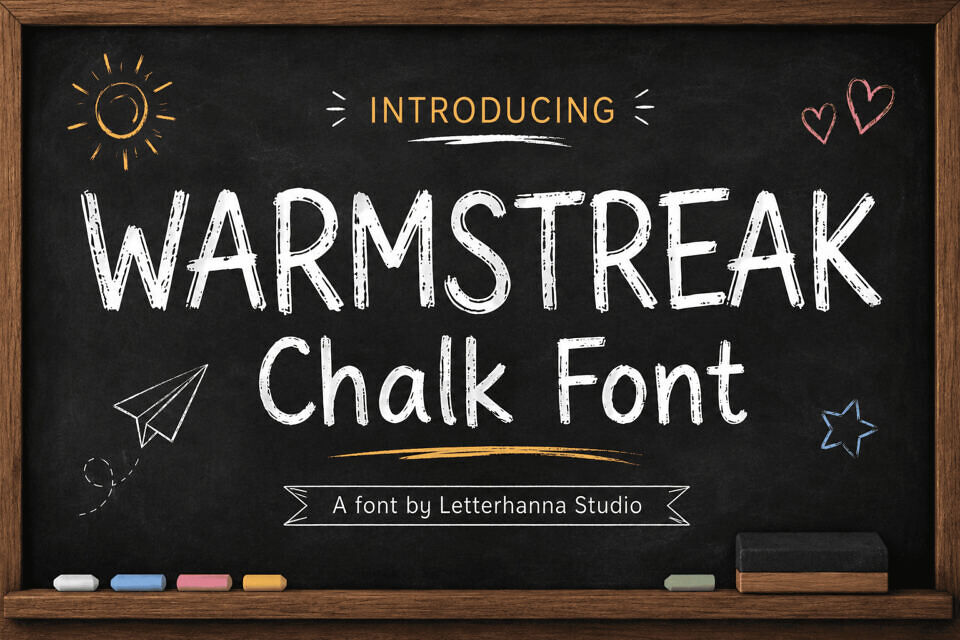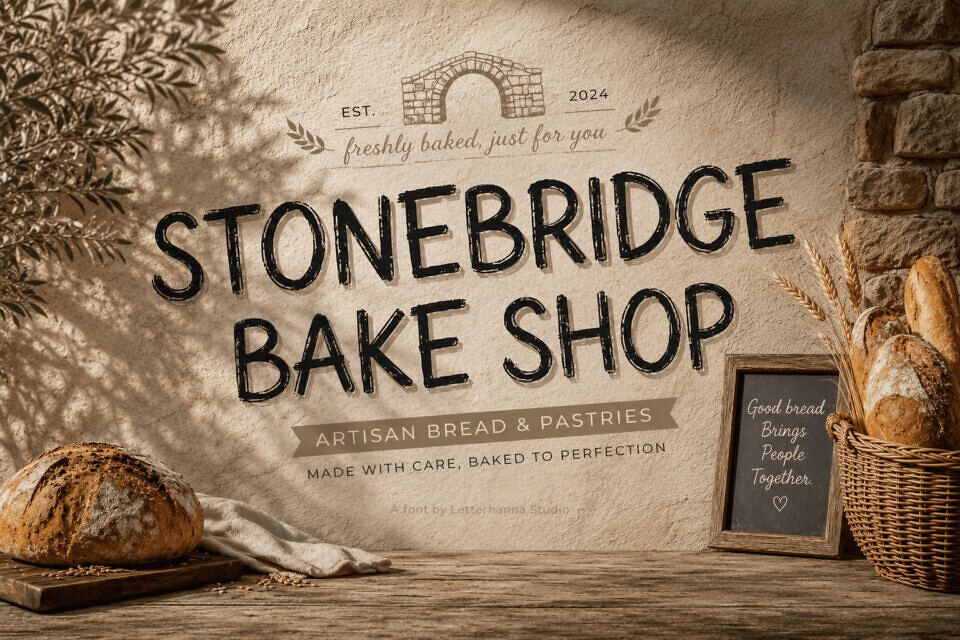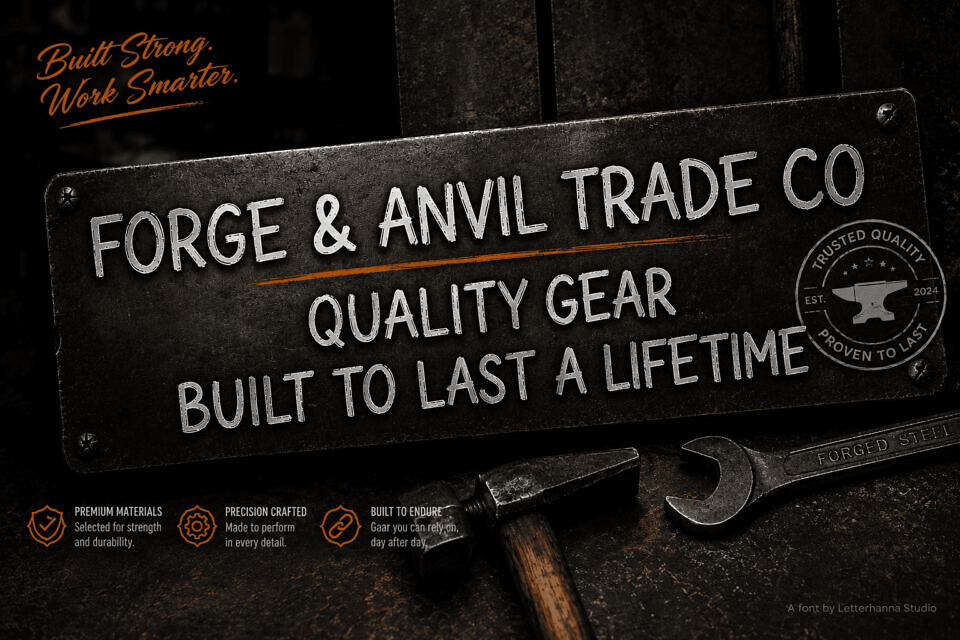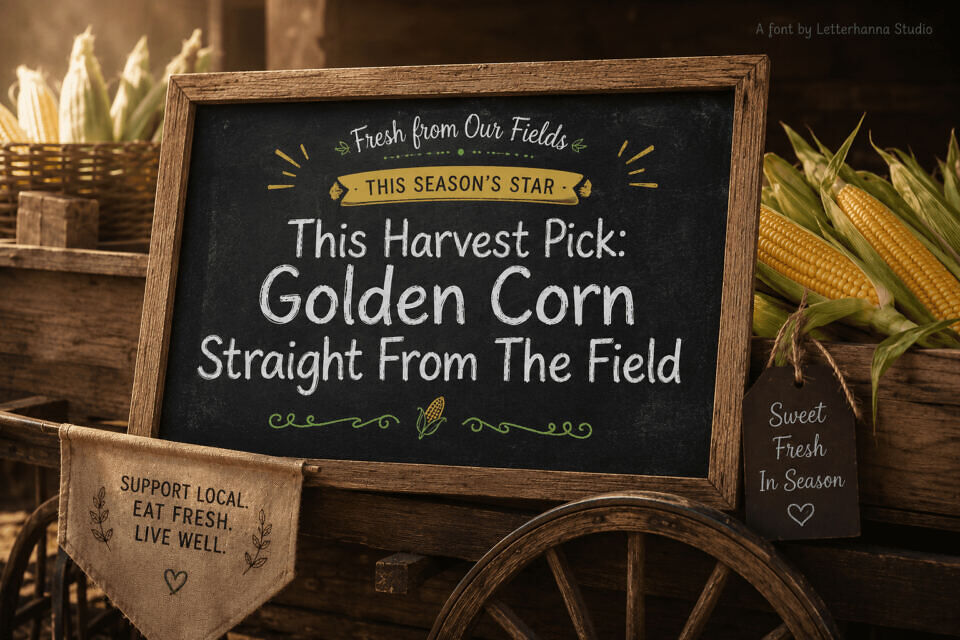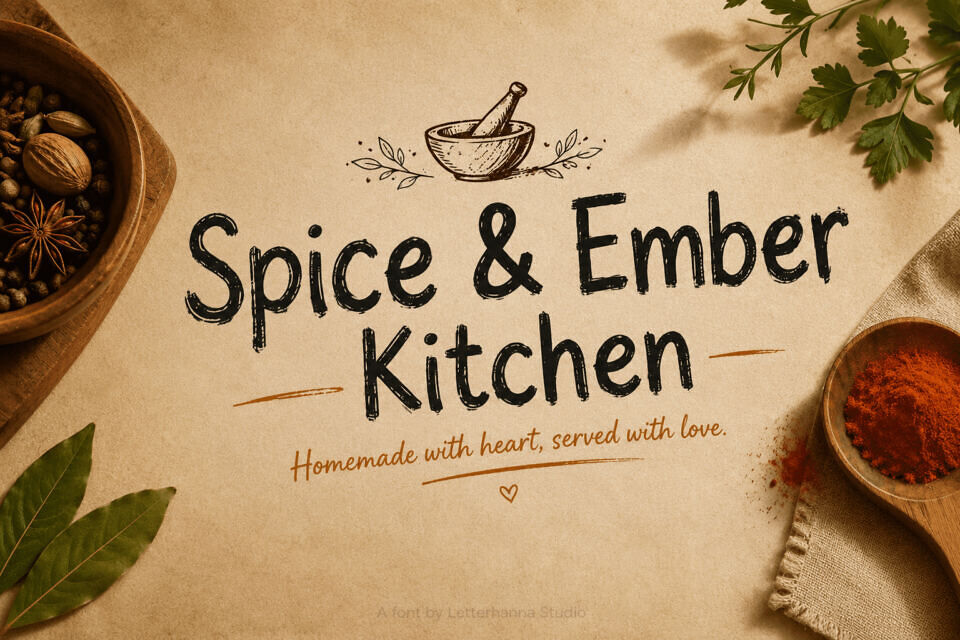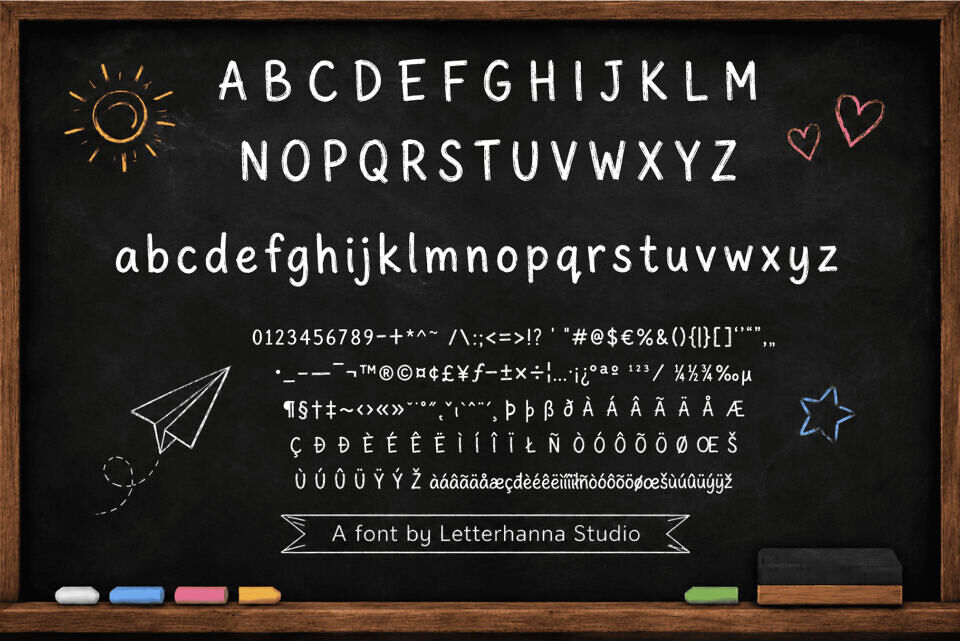
Warmstreak is a hand-textured font duo that brings a personal touch to designs. Its bold, chunky uppercase letters mimic chalk on slate, while the lowercase set is a flowing script. This pairing is perfect for headlines, labels, and text, and includes a full set of numbers and punctuation.
With its imperfect, artisanal feel, Warmstreak is ideal for bakeries, markets, and small brands seeking a unique, handmade look that adds warmth and personality to their designs.